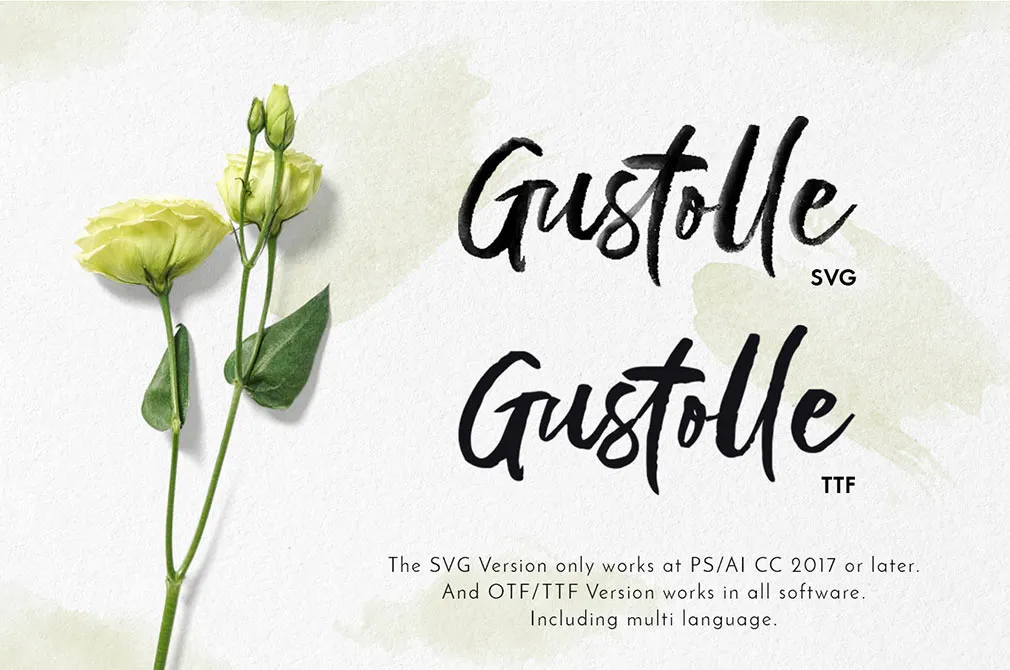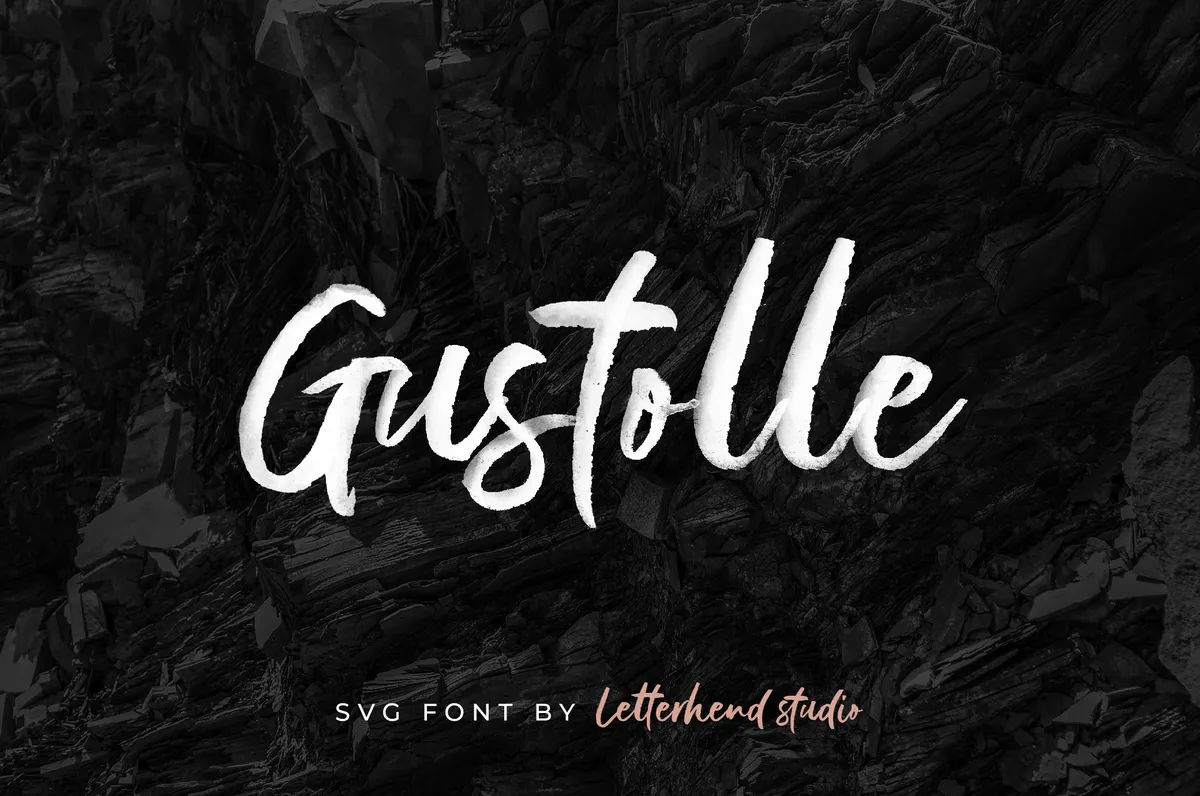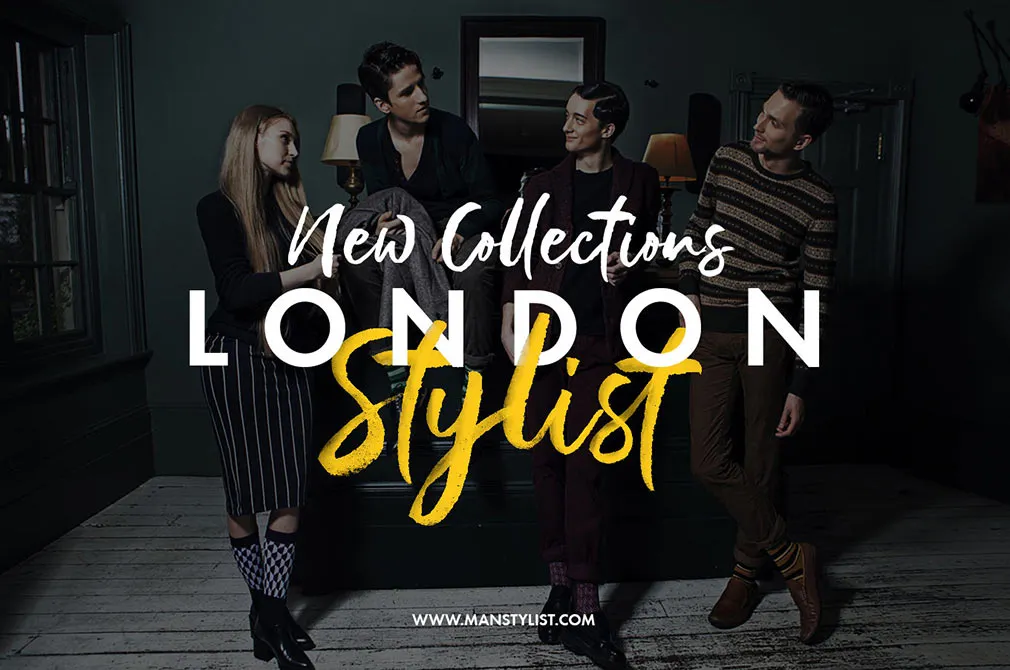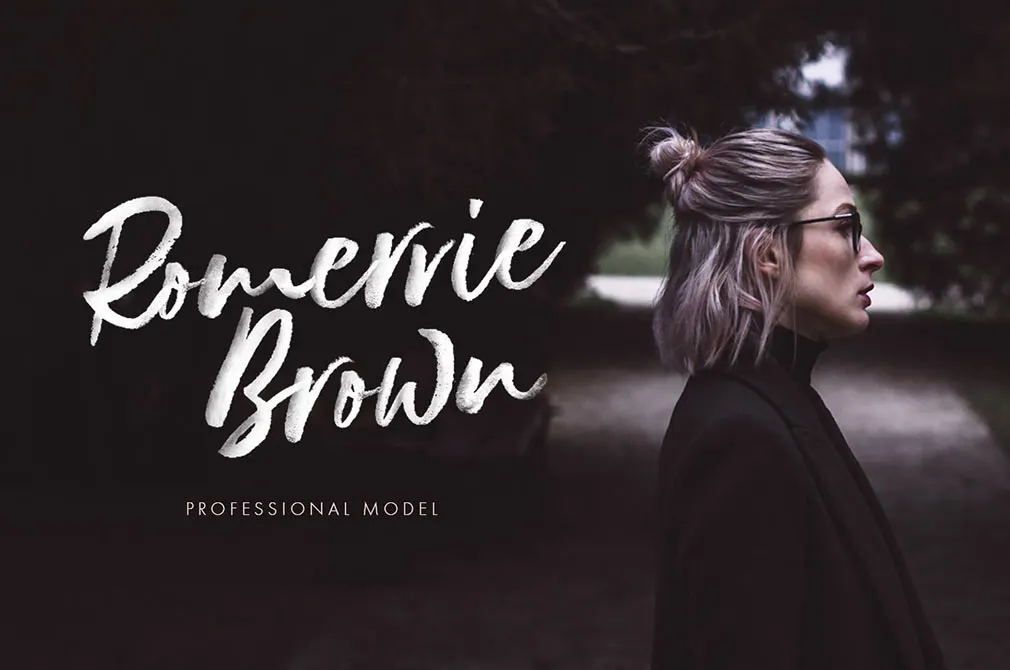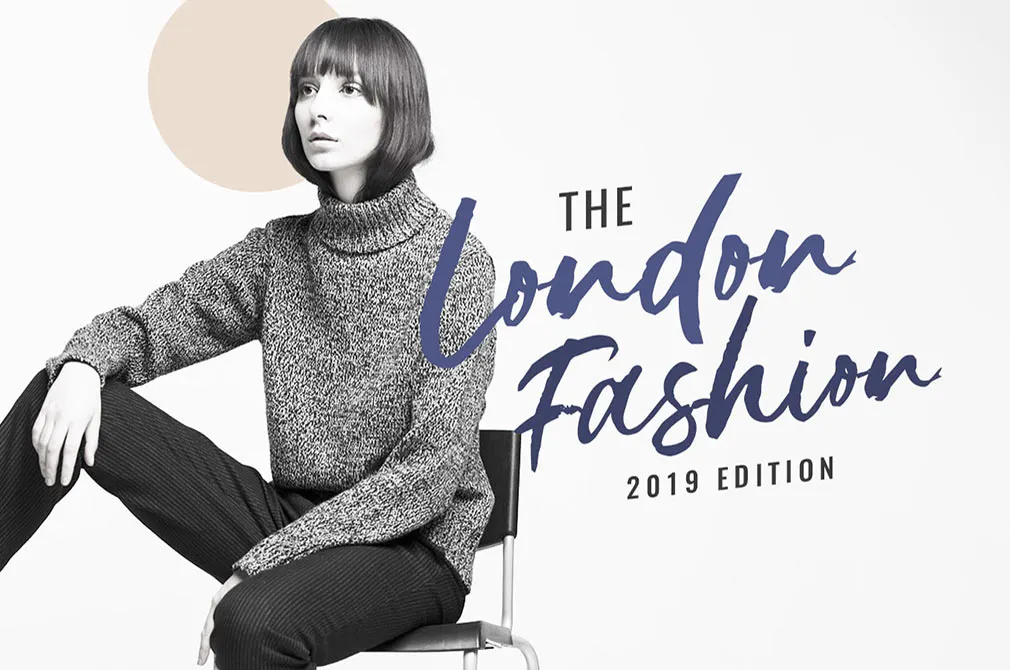
Gustolle Display SVG Font
What can be nicer, than a natural texture brush of a script font? So without further ado, present you the handwritten SVG font, deserving not only attention but appreciation, let us explain to you why.
Our friends from Letterhend Studio carried out another magnificent work a multipurpose typeface all-packed with upper & lowercase, symbols & numerals, ligatures & punctuations. The style of it combines light motives and sharp accents simultaneously, isnt that awesome? Just imagine how this script will be displayed as a headline, advertising, part of a logo, invitation card, packaging or apparel. And the final word: the font has multilingual support, that should definitely be one last pro in favor of it.